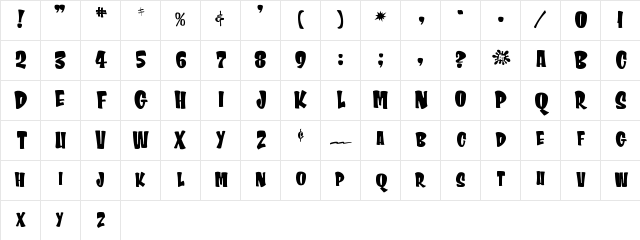
A&S California Plug Regular
Foundry: SIGNFONTS-Art&Sign studio
Designer: Steve Contreras
Design Context for A&S California Plug
A&S California Plug is a composed and adaptable typeface that performs quietly and consistently across a wide range of design contexts.
Pro Tip: Use A&S California Plug in both headline and body roles to test its range before committing to a single application.